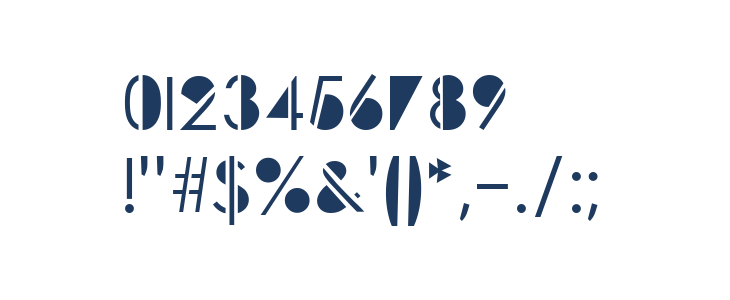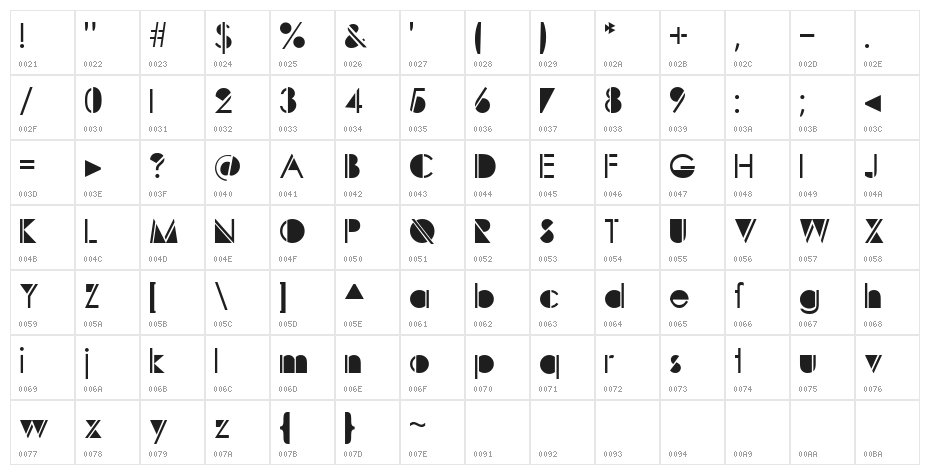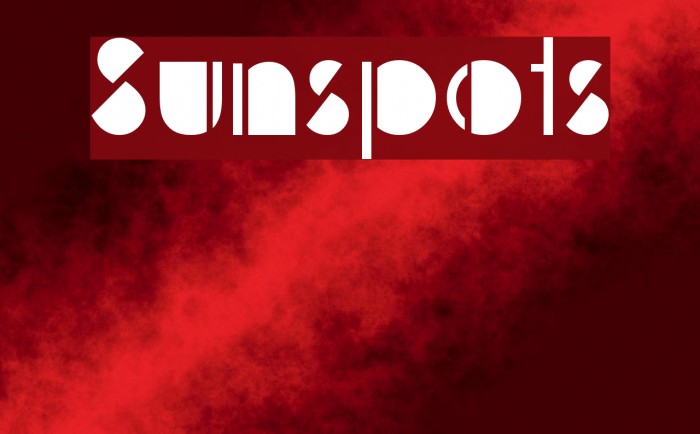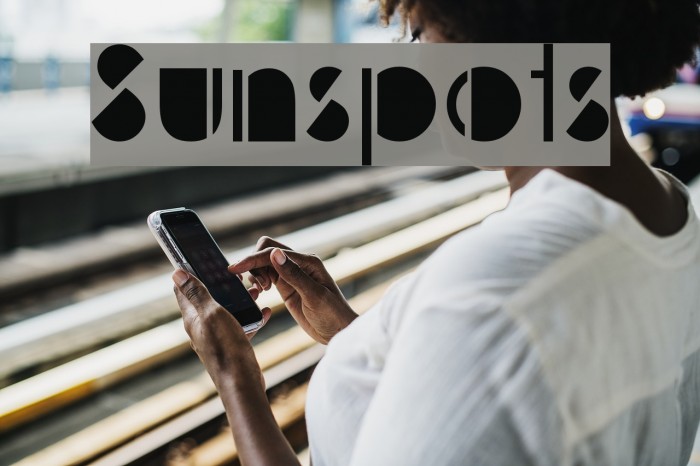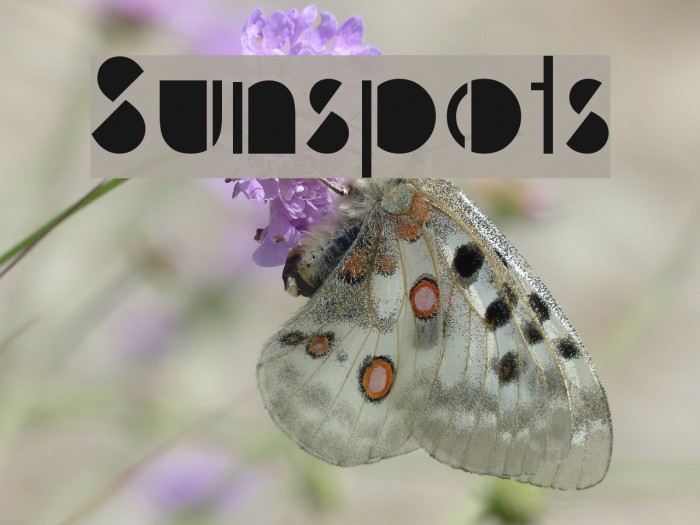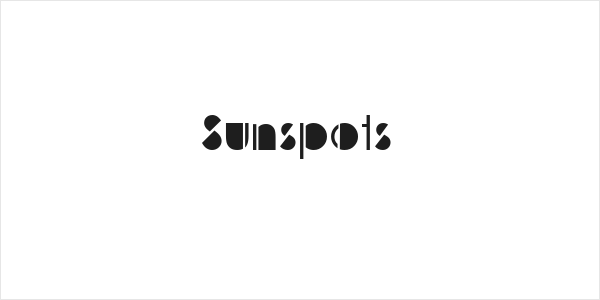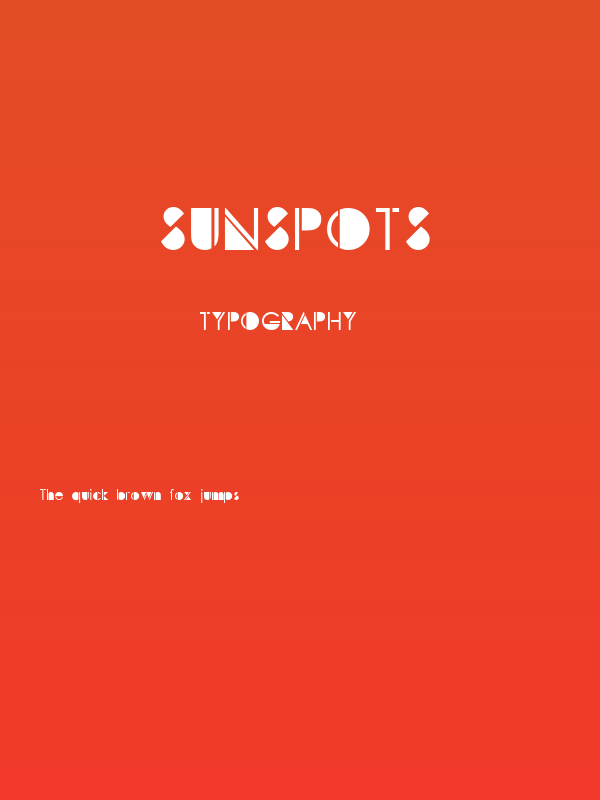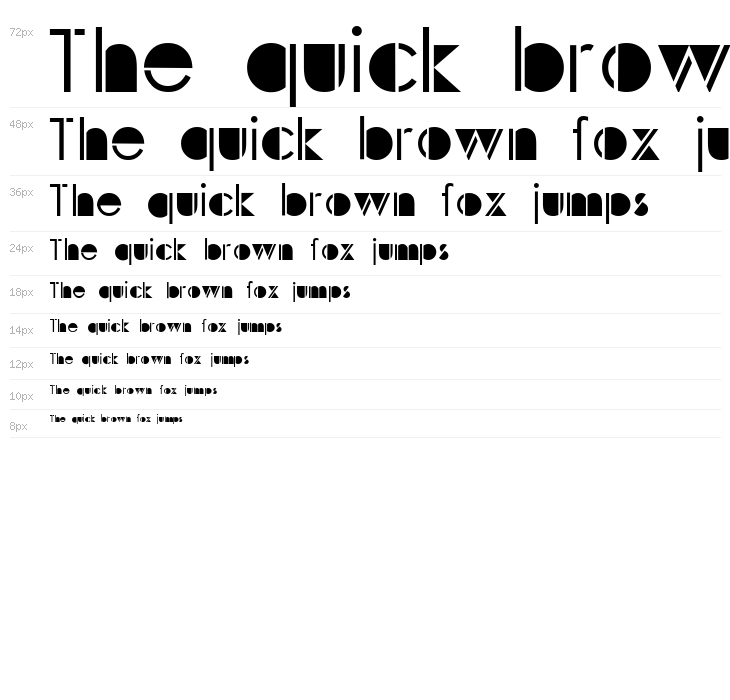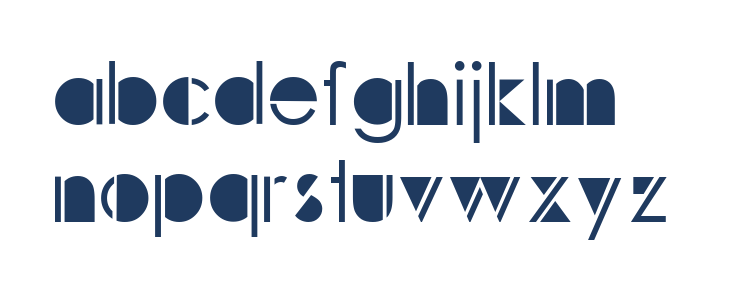
Sunspots Font
Sunspots Description
This font features a bold, geometric design with high contrast between thick and thin strokes. The characters are constructed with sharp angles and circular elements, creating a dynamic and modern appearance. The uppercase letters are particularly striking, with unique cutouts and shapes that add visual interest. The lowercase letters maintain a similar geometric style, offering a cohesive look across the typeface. Numbers and special characters are designed with the same bold and angular aesthetic, making them stand out. This font is ideal for projects that require a strong, contemporary feel.